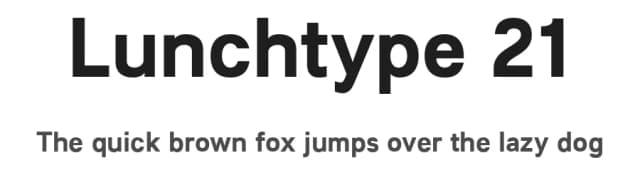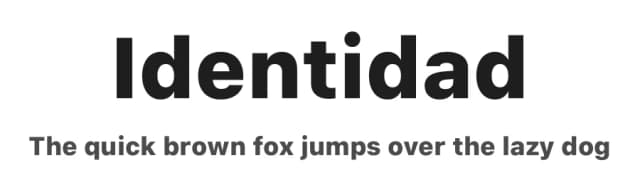
About Flamante Seca Font
Neo-grotesque style fonts built on a 4 Γ 6 building grid formed with 144 x 119 units (Regular version), two digits taken from the fibonacci and Perrin sequences, these measures define the width and height of the vertical and horizontal antlers and the overall proportion of the font.
The metrics and kerning have been carefully set up for fluent reading in paragraph texts.
Flamante Seca Font is a versatile sans-serif font that works for both headings and body text. Pair it with a contrasting serif or slab serif font to add visual interest and a clear distinction between titles and body copy.
Flamante Seca Font